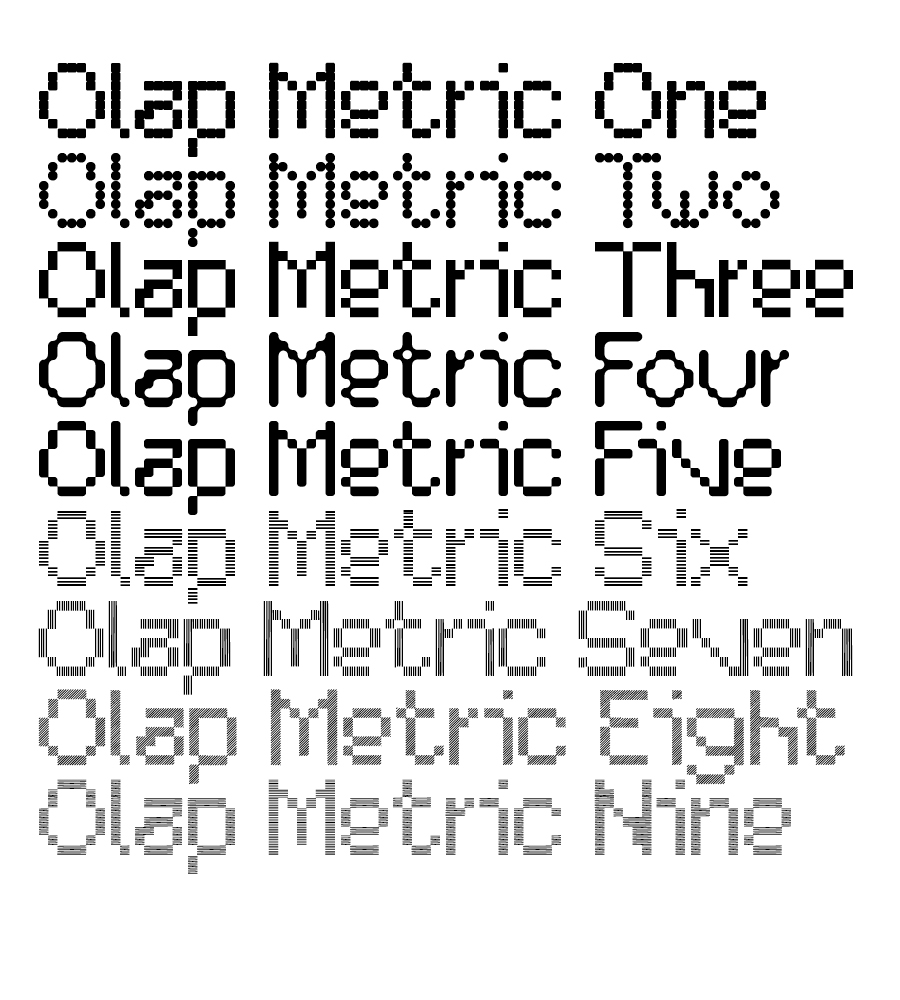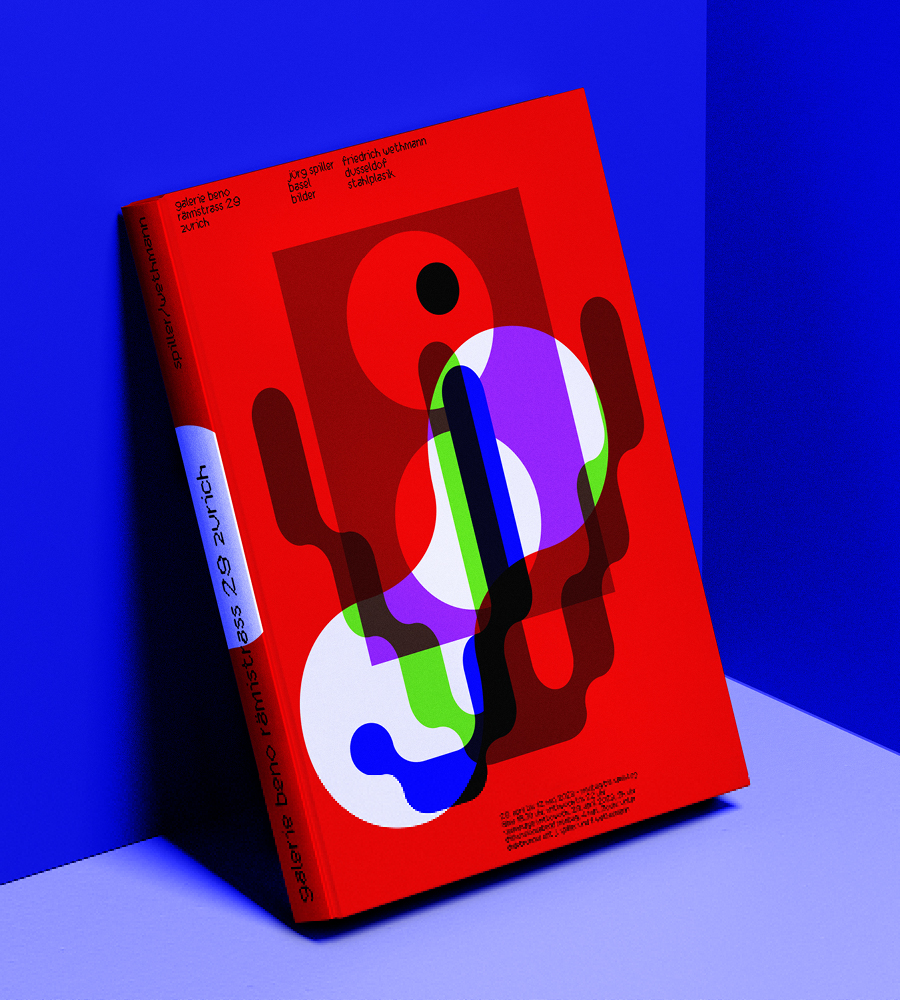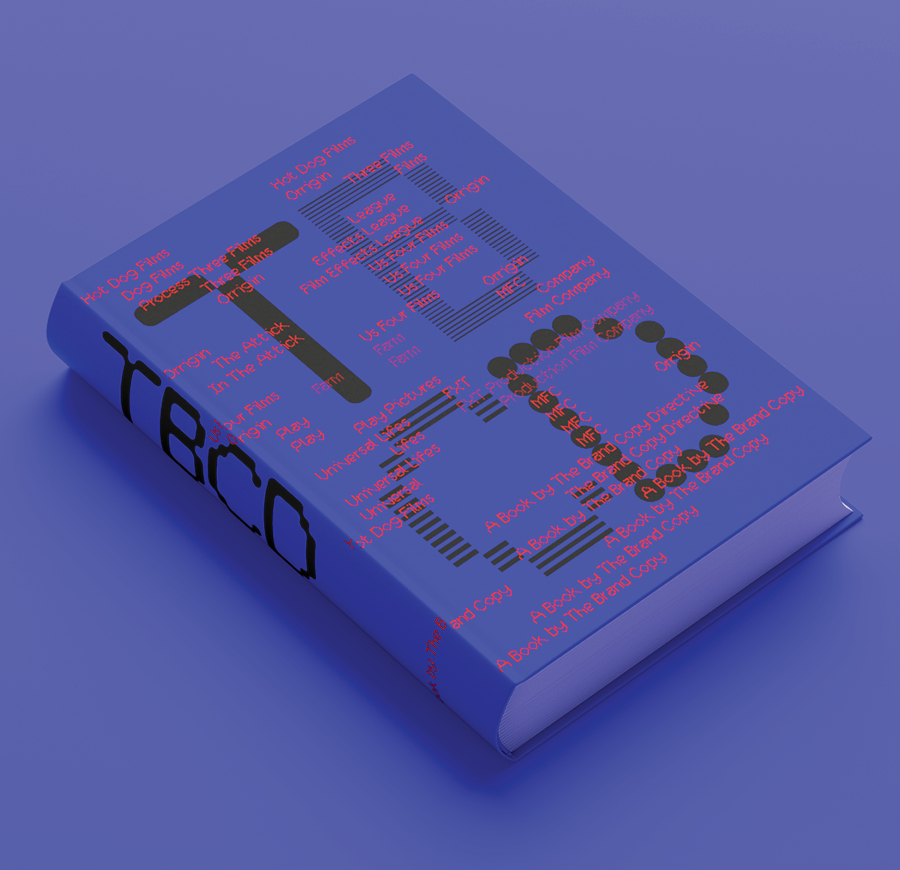
Olap Metric is a modern, one-of-a-kind font that will make your designs stand out against the competition. With 9styles and Multi-languages support, this stylistic display type has what you need for all sorts of projects! The family has been developed as a modern playing system allowing the mixing of infinite combinations. Perfectly suited for headlines, large-format prints, brand identities, social media, advertising, editorial design, posters, magazines, logos, headings, digital and more
Supports 67 different languages such as Spanish, English, German, Italian, Polish, Kurdish (Latin), Dutch, Hungarian, Serbian (Latin), Czech, Swedish, Croatian, Finnish, Slovak, Danish, Lithuanian, Latvian, Slovenian, Irish, Estonian, Basque, and Luxembourgian in Latin and other scripts.